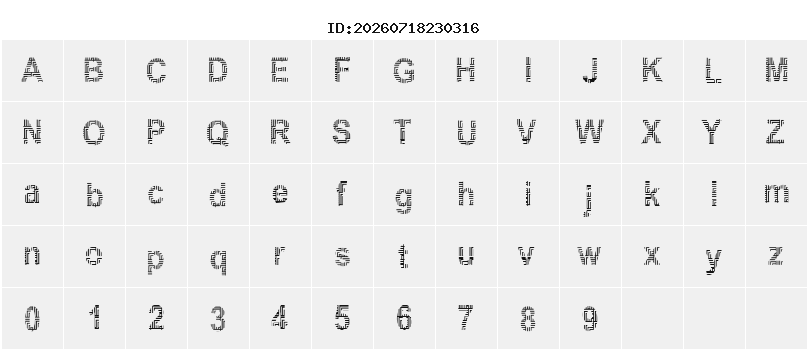
Corner Becker Preview
• Font Name: Corner Becker
• Full Font Name: Corner Becker
About Corner Becker.ttf
Corner Becker.ttf is a modern, elegant sans-serif font designed for ultimate readability and visual harmony. Perfect for branding, headlines, web design, and print materials.